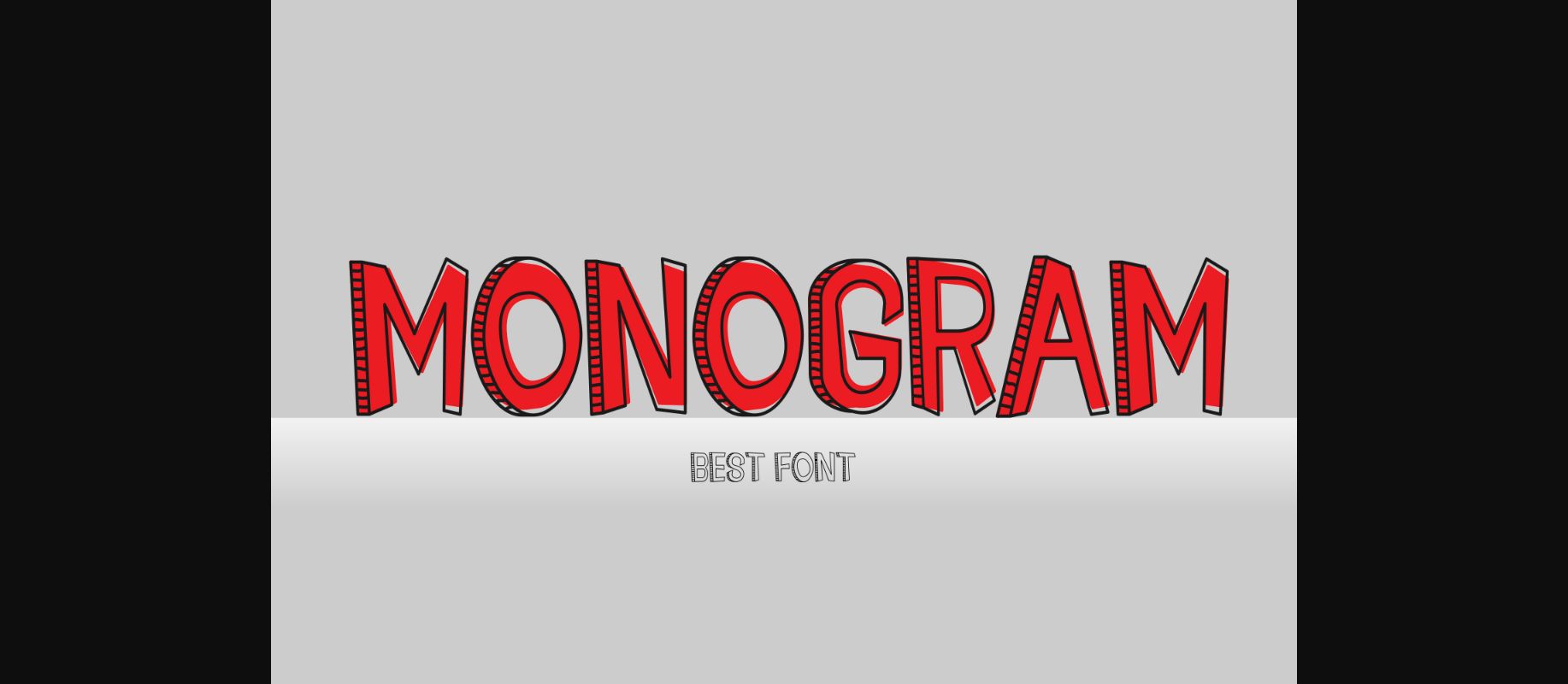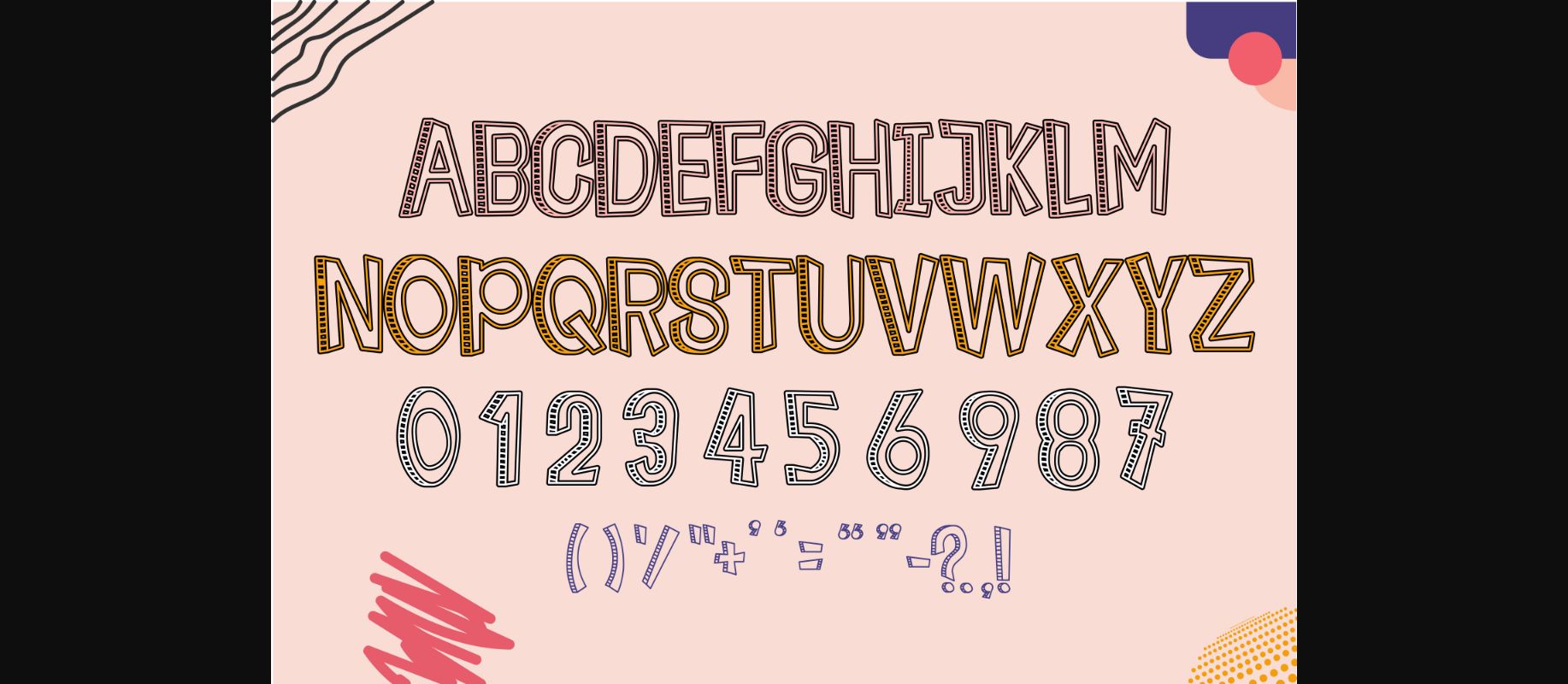
HomeDecorative FontsMonogram Font Decorative Fonts Monogram Font FacebookXPinterestWhatsApp 1 of 4 ... Monogram Font Poster 2... Monogram Font Poster 3... Monogram Font Poster 4... About Monogram Font Monogram is a fun and quirky decorative font. Add it to your crafty ideas and enjoy the results! DOWNLOAD NOW People also explored Nightfall Font Deculate Font Brachetto Font Modulate Stay at Home Font Fishing Journey Font Jelliyta Font Simphony Brushe Font Salya Font 333 0 TagsMonogram Font Previous articleBlossom for You FontNext articleAngel Loves Font LEAVE A REPLY Cancel reply Comment: Please enter your comment! Name:* Please enter your name here Email:* You have entered an incorrect email address! Please enter your email address here Website: Save my name, email, and website in this browser for the next time I comment. Personal Use Free Unsteady Overseer Personal Use Free Read more about this font Bajt Rounded Personal Use Free Read more about this font Autines Personal Use Free Read more about this font BD Geminis Personal Use Free Read more about this font BLOG Top 7 Google Fonts Alternatives for Faster and Privacy-Friendly Web Design (2025) Top 7 Google Fonts Alternatives for Faster and Privacy-Friendly Web Design (2025) When it comes to web typography, Google Fonts has long been the go-to... Free vs Paid Fonts: Why Investing in Premium Fonts Is Worth It Free Fonts Risk: Why Free Fonts Can Be Dangerous for Designers Fonts That Capture the Spirit of New York City